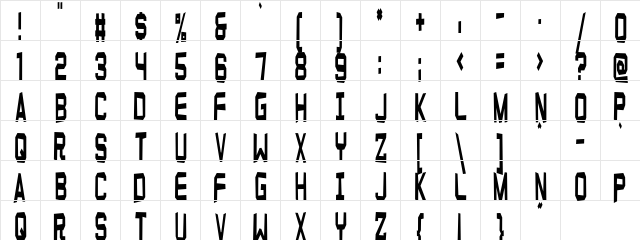
Farm Hut Regular
Design Context for Farm Hut Typeface
Farm Hut is a composed and adaptable typeface that performs quietly and consistently across a wide range of design contexts.